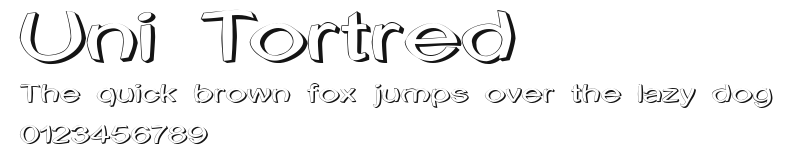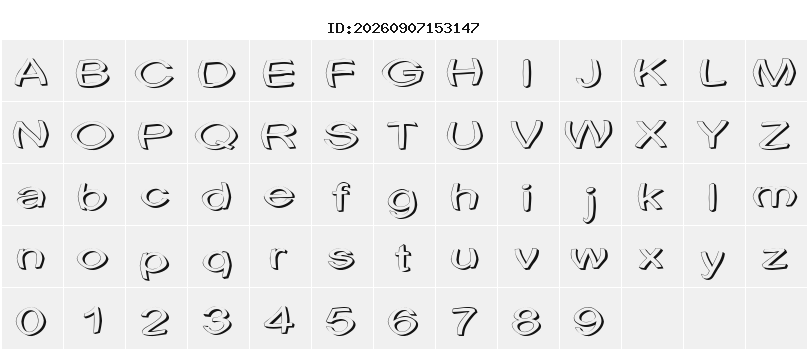
Uni Tortred Preview
• Font Name: Uni Tortred
• Font ID: Uni Tort
• Full Font Name: Uni Tortred
• PostScript Name: UniTortred
About Uni Tortred.ttf
Uni Tortred.ttf is a modern, elegant sans-serif font designed for ultimate readability and visual harmony. Perfect for branding, headlines, web design, and print materials.